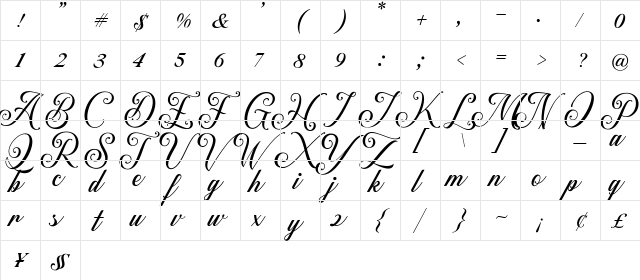
Arastin Script FREE DEMO Regular
Design Context for Arastin Script FREE DEMO Typeface
Arastin Script FREE DEMO brings a calligraphic fluidity to the page — its connecting strokes and expressive curves give it an unmistakably human quality.